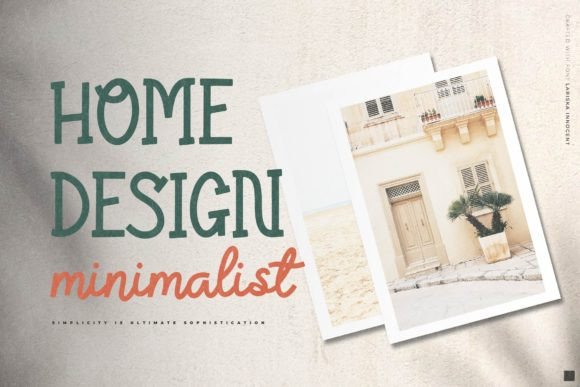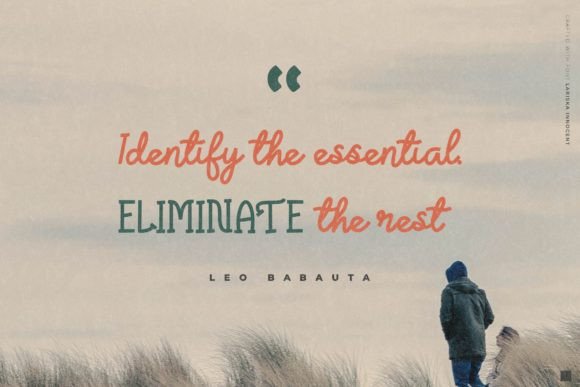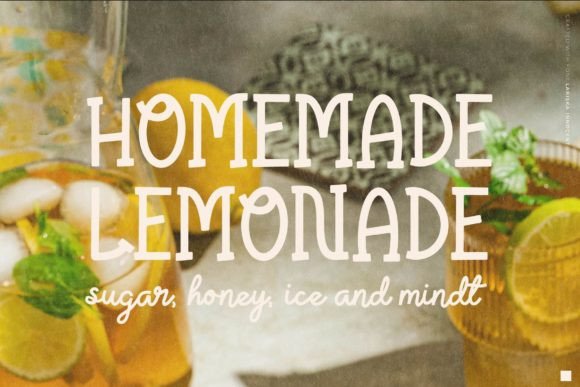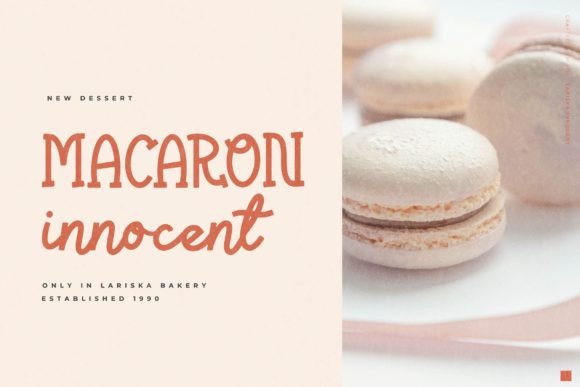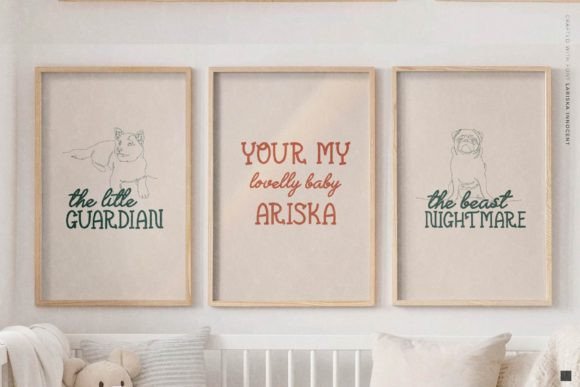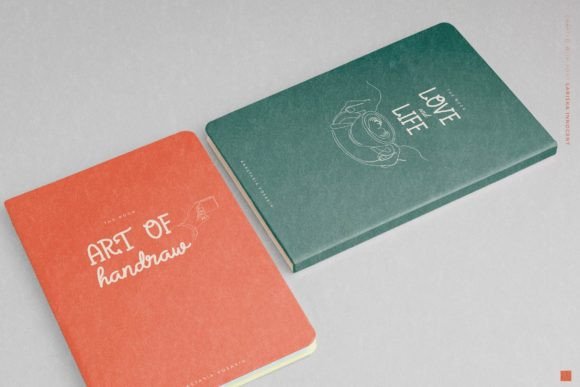
Introduction to Lariska Innocent Font Font
Fonts play a crucial role in design, and the Lariska Innocent Font font is a typeface that brings both character and versatility to any project. Whether you’re working on a branding project, a website, or a print design, the Lariska Innocent Font font offers a unique style that can elevate your work.
Lariska Innocent is a playful and elegant font duo that combines two handwriting styles.
One is more delicate and pretty, while the other is bold and casual Together, they create a balanced and stylish look, perfect for invitations, logos, and personal projects.
Key Features of Lariska Innocent Font Font
Why Choose Lariska Innocent Font Font?
The Lariska Innocent Font font is more than just a typeface – it’s a design tool that helps you communicate your message with style and clarity. Its unique character set and versatile design make it suitable for a wide range of applications, from elegant invitations to bold headlines.
With its carefully crafted letterforms and balanced proportions, the Lariska Innocent Font font ensures readability and visual appeal across all mediums.
What makes Lariska Innocent Font font special?
The Lariska Innocent Font font stands out with its unique design, exceptional readability, and versatility across various design applications.